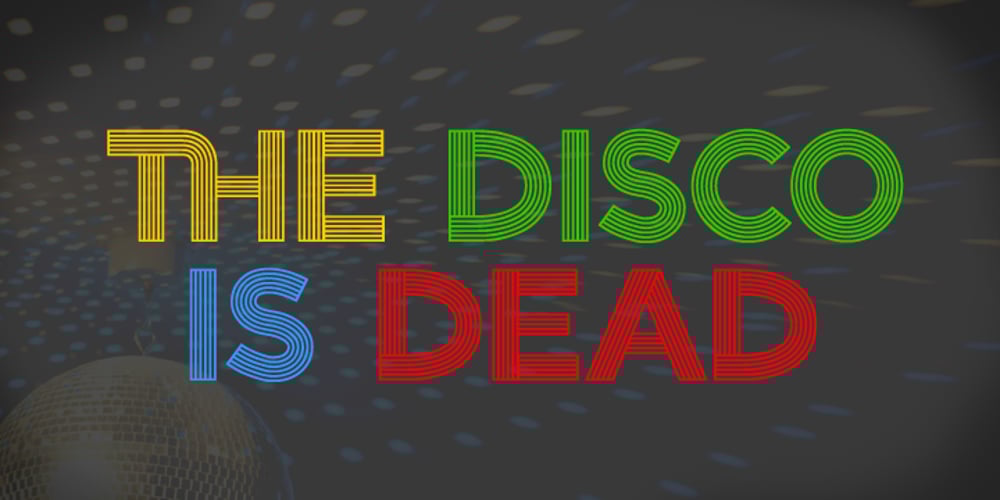
Radial
Radial font
Radial Font Family was designed by Kent Swecker and published by A New Machine. Radial contains 1 styles and family package options. Radial is a multi-line retro sans-serif font that is reminiscent of fonts from the 70s / disco era. It is all caps, but the lower case glyphs have rounded edges for a subtle difference if you are looking for a softer look. Use open type for some discretionary ligatures of common letter pairs (when set in all caps). Great for use on posters and in headline copy.